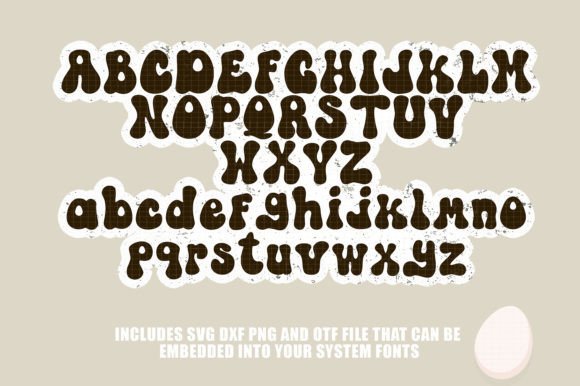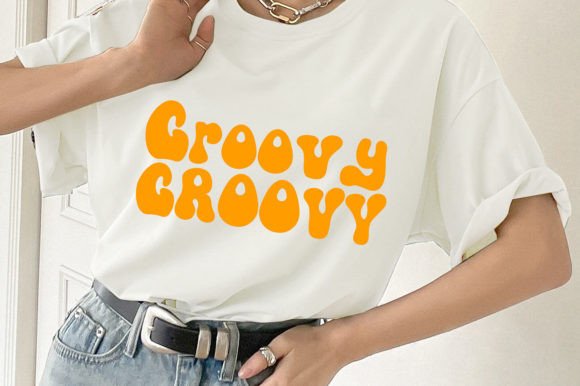
The Groovy Egg Font: Bringing Back the Fun in Design
Do you remember the excitement of finding that perfect font for a project, only to have it all come together and you can’t help but feel a rush of creative satisfaction? It’s moments like these that make design so rewarding. For designers like you, the right font can make all the difference in bringing a project to life. That’s why we’re thrilled to introduce you to the Groovy Egg Font.
This groovy retro-style font is hand-drawn to create fun, playful curves that are perfect for creating cake toppers and T-shirt graphics. But its value extends far beyond these uses. With the OTF font file, you can embed it into your system fonts and use it across all of your programs, making it a versatile addition to your design toolkit.
Whether you’re a seasoned designer or just starting out, the Groovy Egg Font is a valuable asset to have in your arsenal. Its unique style and versatility make it a must-have for anyone looking to add a touch of fun and personality to their designs.
Groovy Egg Font Key Features
- Font Family: Groovy Egg Font is a unique, hand-drawn font family with 3 styles: Regular, Bold, and Italic.
- Unique Characteristics: Groovy Egg Font features a playful, hand-drawn style with rounded shapes and subtle texture, perfect for creating fun and whimsical designs.
- Character Set: The font includes a full range of characters, including uppercase and lowercase letters, numbers, and punctuation marks, as well as a selection of special characters and symbols.
Groovy Egg Font Review
Overall, I’d say the Groovy Egg Font is a quirky addition to any design project. ✨ Its playful, hand-drawn feel makes it perfect for adding a touch of whimsy to children’s books, party invitations, or any other project that needs a bit of fun.
The font is highly customizable, with a wide range of options for adjusting the size, color, and style. ✨ This makes it easy to use in various design contexts, from digital to print.
- Playful, hand-drawn feel that adds a touch of whimsy
- Highly customizable, with options for adjusting size, color, and style
- Perfect for children’s books, party invitations, and other fun projects
- May not be suitable for formal or professional projects
- Can appear cluttered or overwhelming if used excessively
- May require additional styling to make it readable in certain contexts
Overall, the Groovy Egg Font is a fun and versatile addition to any design project. While it may not be suitable for every project, it’s a great choice for those that need a playful, hand-drawn feel. With some careful styling, it can add a lot of personality to your designs. ⚠️ Just be mindful of its limitations, and you’ll be grooving in no time!
The Groovy Egg Font is perfect for adding a playful touch to your designs. Use it for:
- Children’s products and packaging
Remember to experiment with different font sizes, colors, and combinations to get the most out of this unique font.